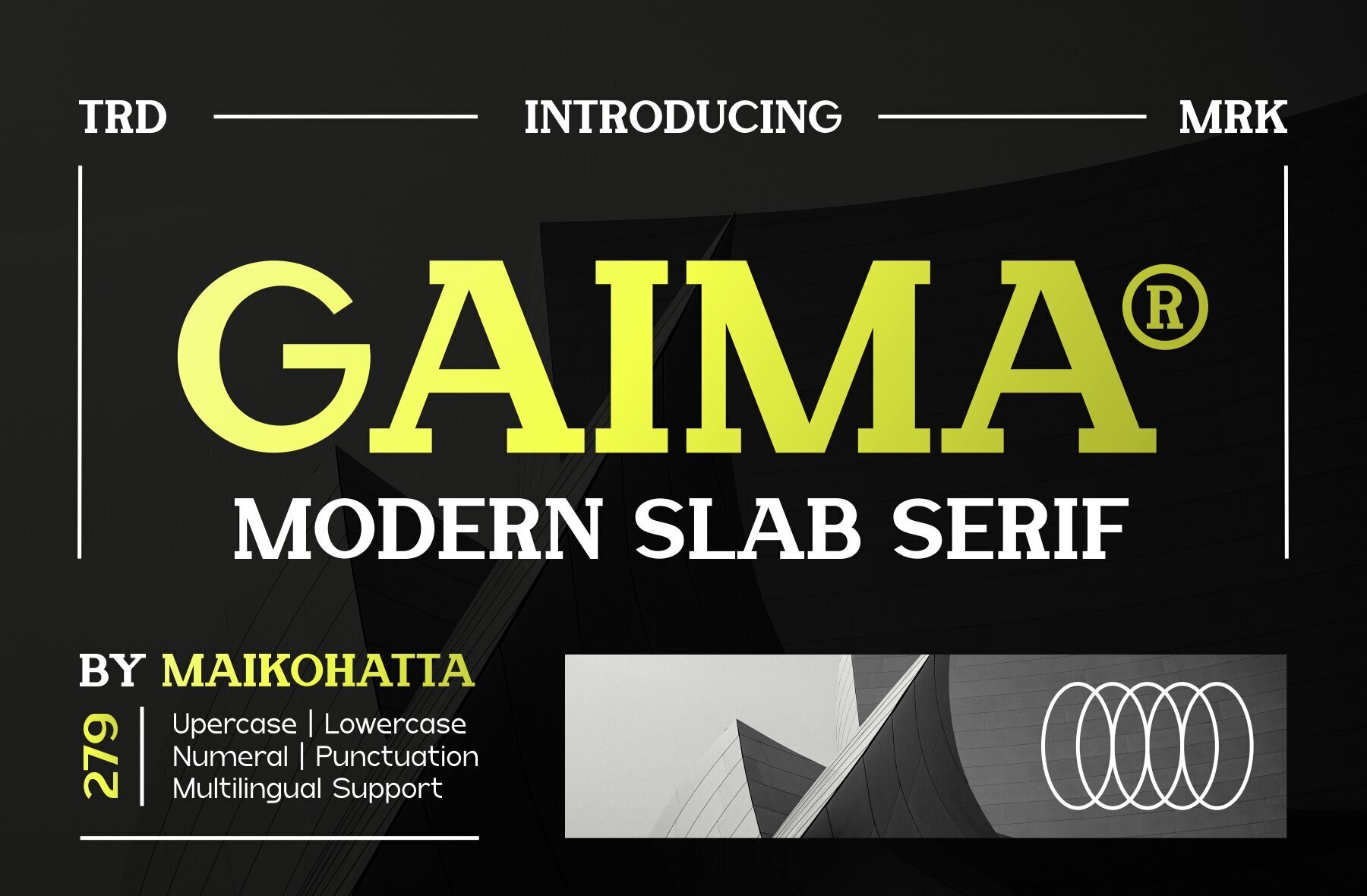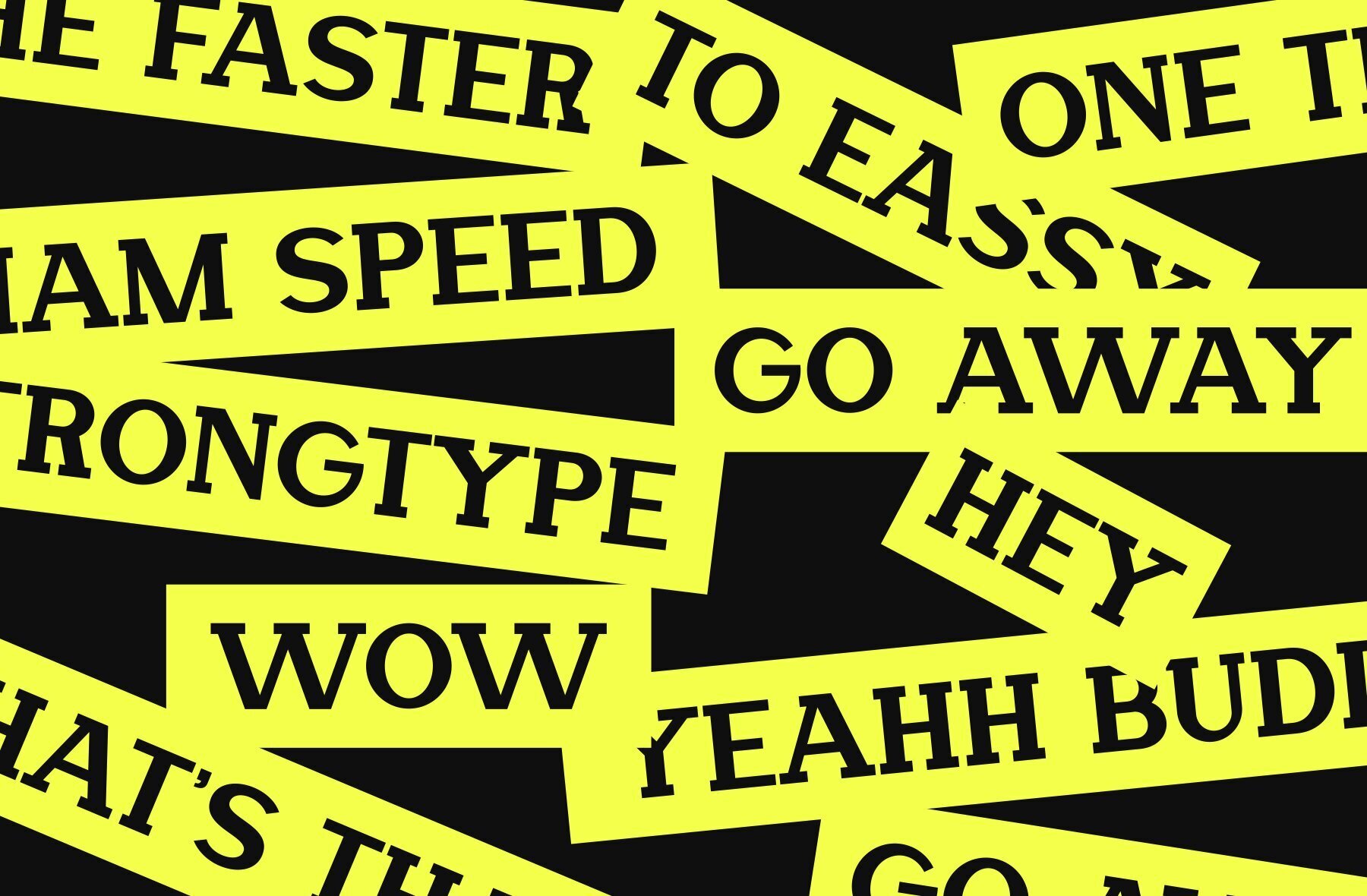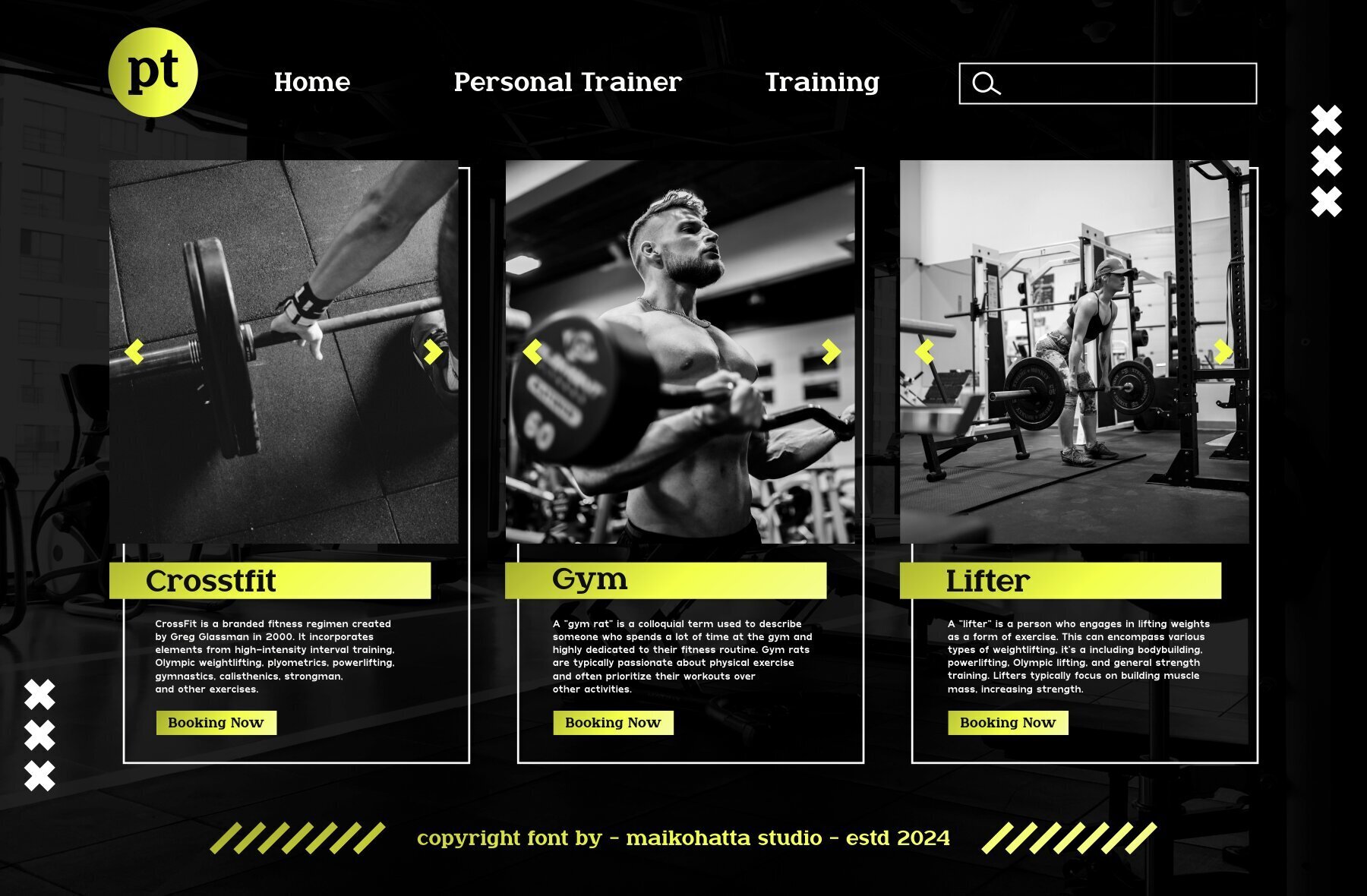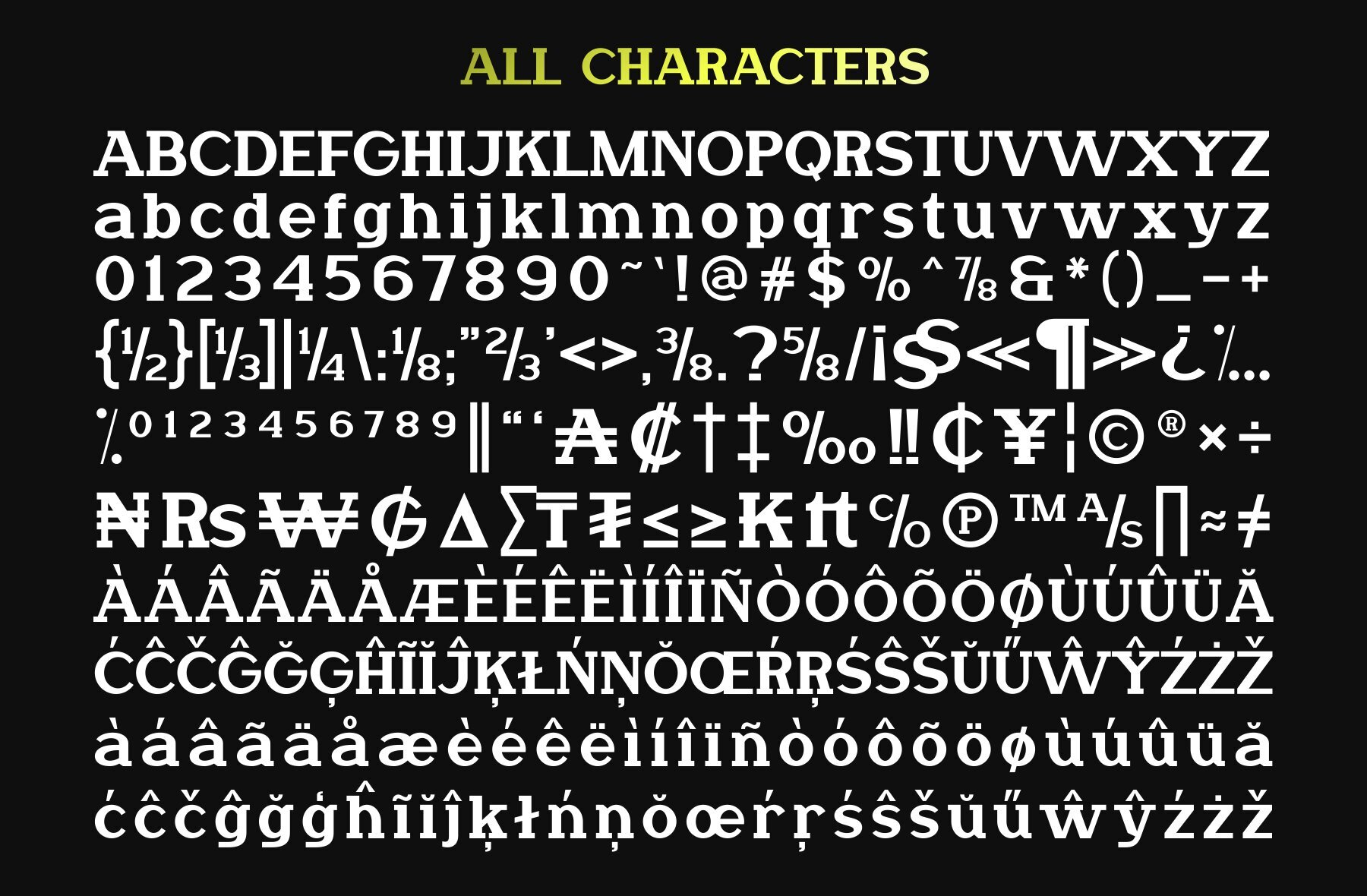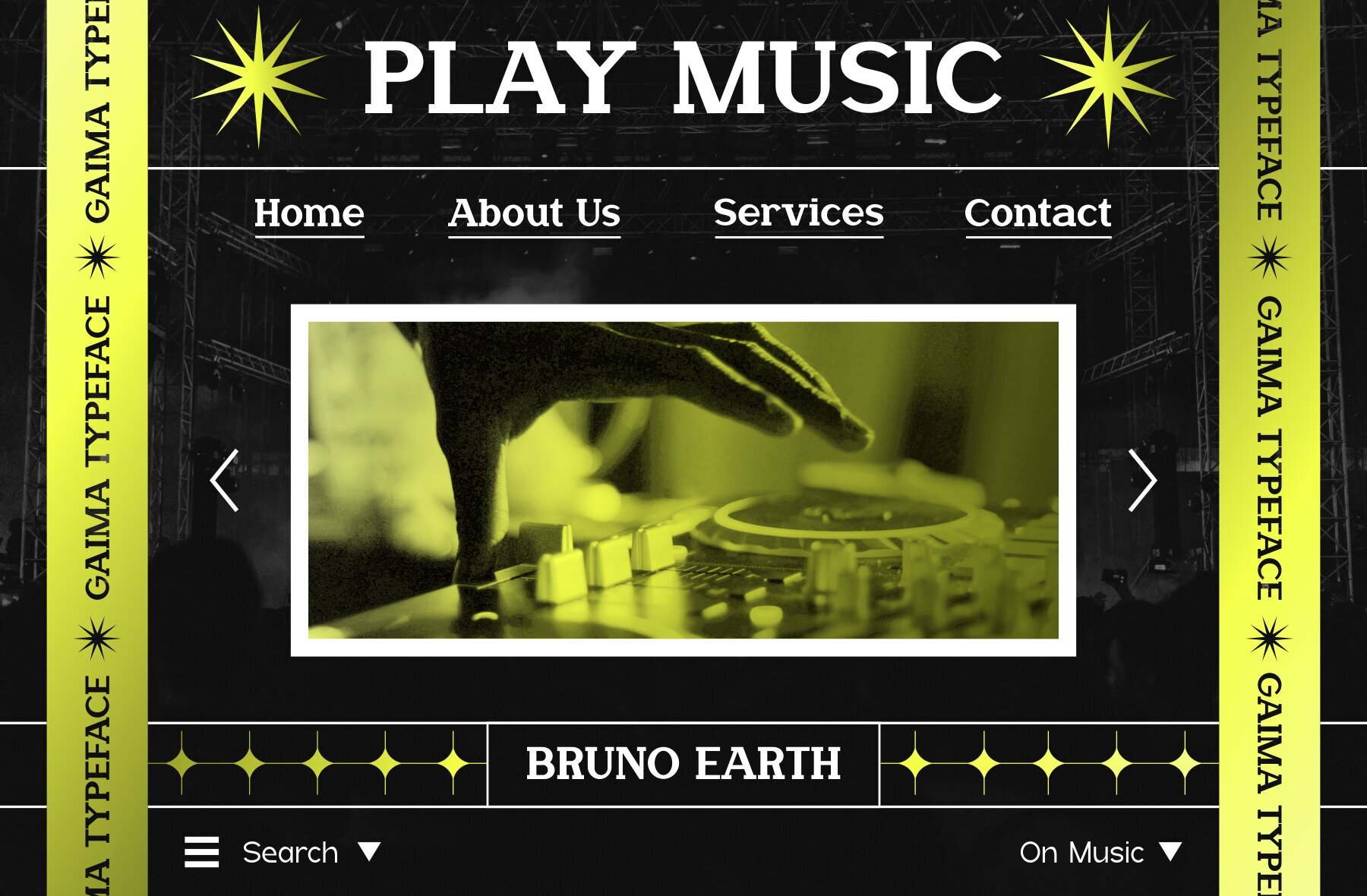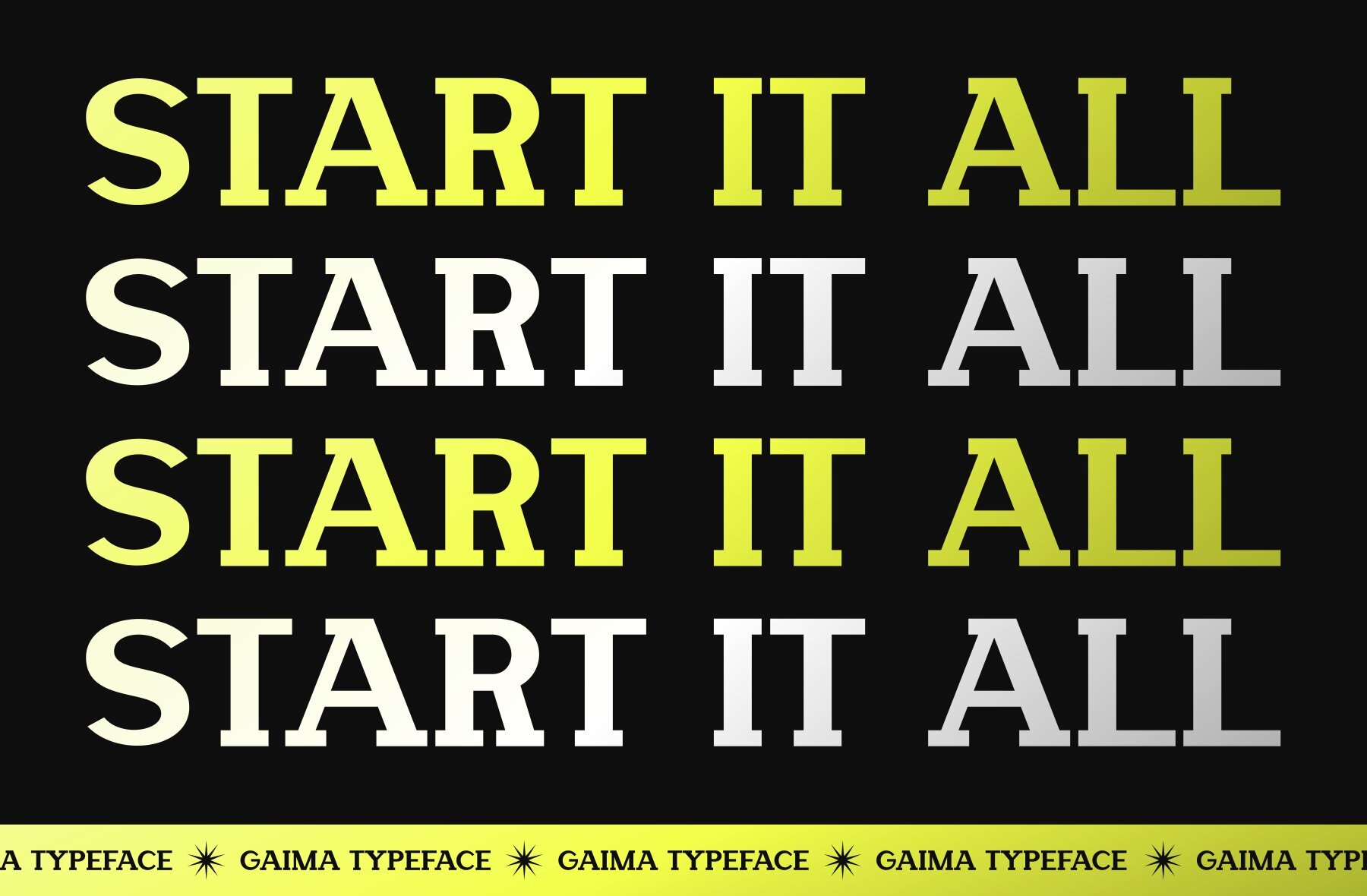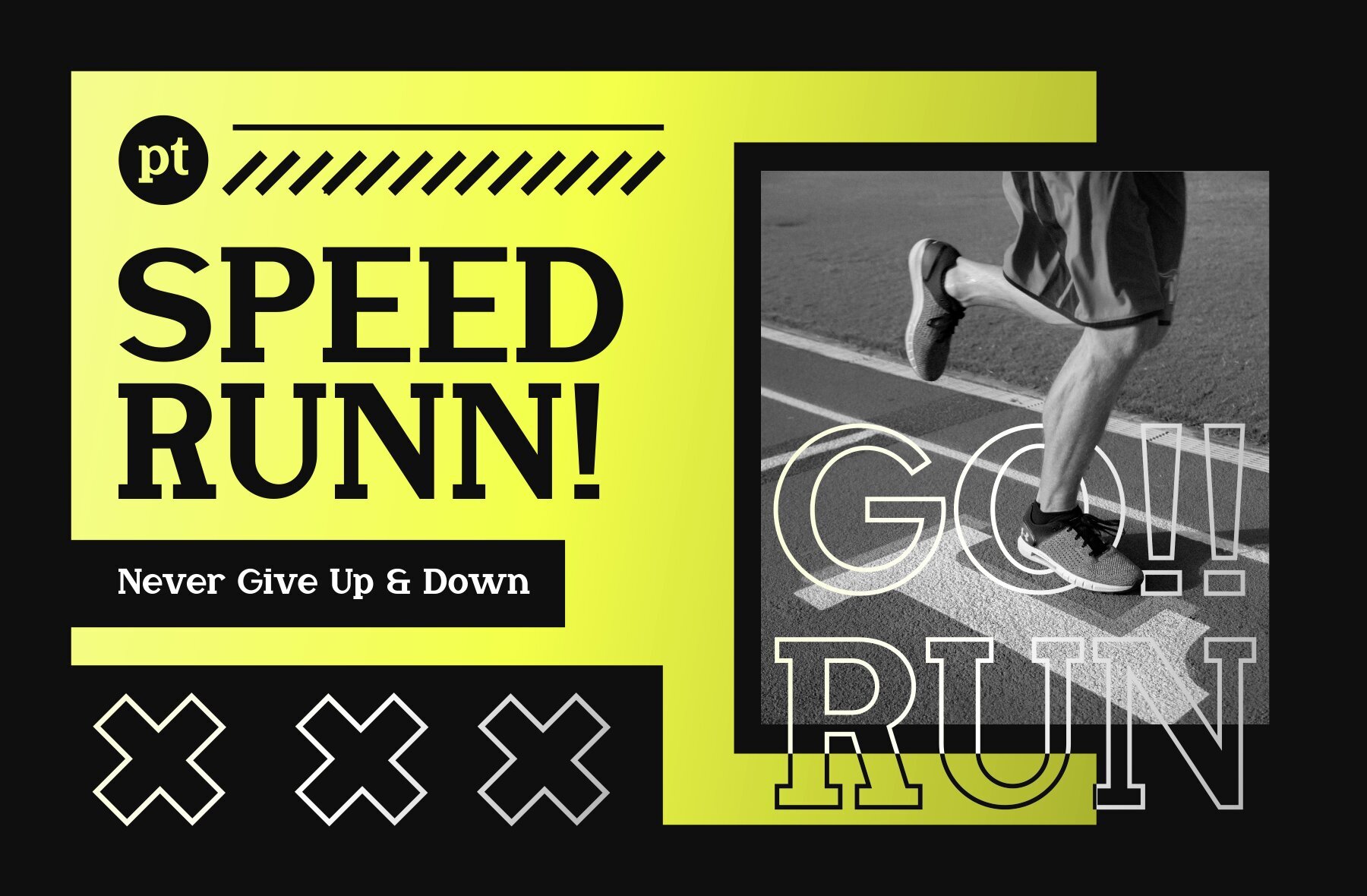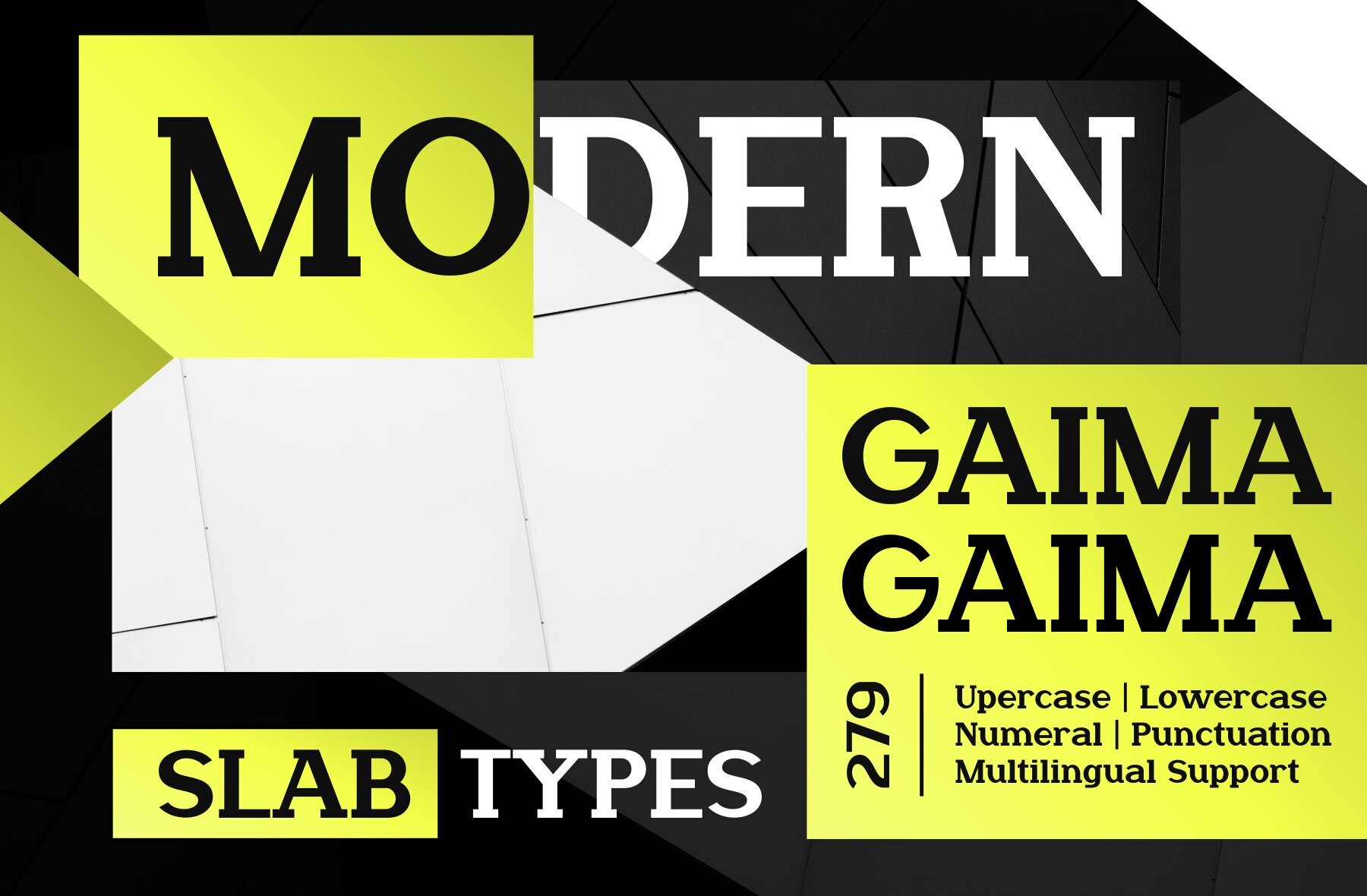
Gaima Font
Gaima Regular
This serif font exudes a timeless and classic elegance, making it well-suited for sophisticated and formal design projects. Its refined structure and high readability make it ideal for use in print media such as books, magazines, and editorial layouts, as well as for professional documents and high-end branding. The font's details and contrast ensure clear and impactful headlines as well as comfortable long-form reading in body text.